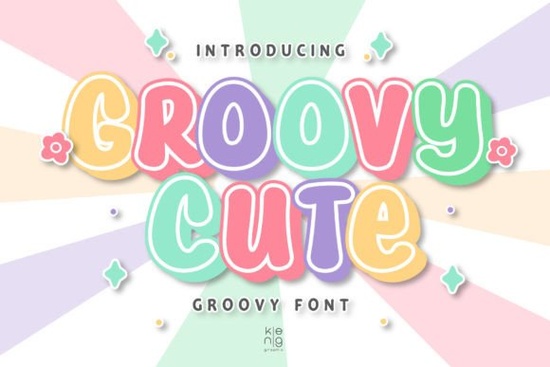
If you're looking for a display font that feels playful but still holds its own in bold, high-visibility contexts like T-shirt designs, social media graphics, or printable greeting cards the Groovy Cute Font fits naturally into that space. It’s not overly ornate or hard to read at larger sizes, and it carries a light, confident energy without feeling childish. Think of it as the kind of typeface you’d reach for when you want your message to feel friendly, energetic, and just a little cheeky perfect for youth-oriented brands, indie game assets, or handmade merchandise.
Where does Groovy Cute Font work best?
This font shines where personality matters more than neutrality. Because it’s designed as a display font not meant for long paragraphs it works especially well on items people see quickly and remember visually: movie title posters, Instagram story text overlays, enamel pin mockups, or even chalkboard-style café menus. Its rounded terminals and slightly bouncy letterforms give it a relaxed, approachable rhythm. You’ll notice it stands out cleanly against busy backgrounds, and it pairs nicely with simple sans-serif body fonts if you’re building layered layouts.
It’s also a solid choice for print-on-demand sellers who focus on niches like cute aesthetic, retro-kidcore, or indie romance. For example, pairing Groovy Cute Font with soft pastel palettes or doodle-style illustrations helps reinforce that lighthearted, hand-drawn vibe many customers love in digital downloads and physical goods.
How does it compare to other popular display fonts?
Like Retro Holly Font, Groovy Cute has strong visual presence but leans more toward modern playfulness than vintage charm. If you’ve used Varsity Signature Font for sporty or collegiate themes, you’ll find Groovy Cute offers a gentler, more inclusive alternative still bold, but less aggressive. It shares some warmth with Sweetie Honey Font, though Groovy Cute has tighter spacing and slightly more defined contrast between thick and thin strokes, making it easier to scale up for large-format prints.
Compared to Beautiful Caroline Font, Groovy Cute is less script-like and more structured so it’s better suited for headlines where clarity matters. And unlike Gemstone Font, which leans glam and glittery, Groovy Cute keeps things grounded and accessible, making it easier to use across diverse age groups and design styles.
What kinds of projects get stronger with this font?
- Comic book covers and panel headers its expressive weight and rhythm help guide attention without competing with artwork
- Love-themed apparel think “You’re My Favorite Human” or “Snack Partner for Life” printed on cotton tees
- Digital stickers and Canva templates it scales cleanly across devices and renders well in PNG/SVG exports
- Printable party kits birthday banners, cupcake toppers, and photo booth props benefit from its cheerful readability
- Game UI elements buttons, achievement titles, or character name tags in browser-based or mobile games
One thing to keep in mind: because it’s a display font, avoid using it for body copy or small captions (under 24pt). Also, test how it looks in different weights Groovy Cute includes both regular and bold variants, so mixing them thoughtfully adds hierarchy without needing extra type families.
Real-world usage tips
Try pairing Groovy Cute Font with neutral sans-serifs like Montserrat or Inter for clean, balanced layouts. If you’re designing for platforms like Etsy or Redbubble, preview your mockups on mobile first this font holds up well on screens, but tight kerning can sometimes look cramped in narrow spaces. Adjust letter spacing by +10–20 units in design tools if needed.
You can also layer it creatively: try setting a phrase in Groovy Cute, then duplicating the layer, shifting it slightly, and changing the color to create a subtle shadow or offset effect great for posters or SVG cut files.
For reference, you can view the full set including alternate characters and ligatures on Creative Fabrica: Groovy Cute Font.
Quick checklist before using Groovy Cute Font:
- ✅ Test readability at your smallest intended size (avoid under 20pt for most uses)
- ✅ Pair it with a legible, low-contrast body font to balance visual weight
- ✅ Preview on both light and dark backgrounds its rounded forms can soften on low-contrast combos
- ✅ Save a version with adjusted tracking if using it in all-caps or tight horizontal spaces